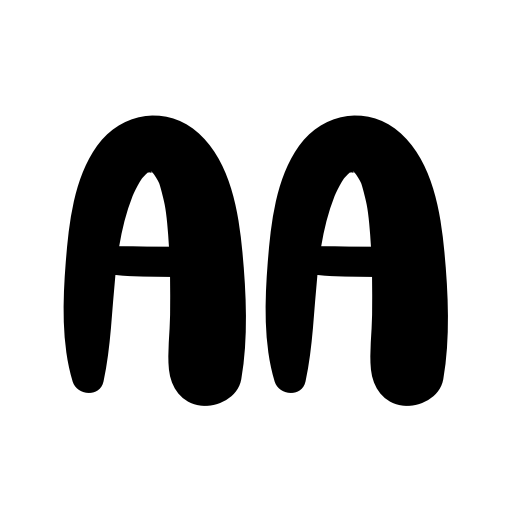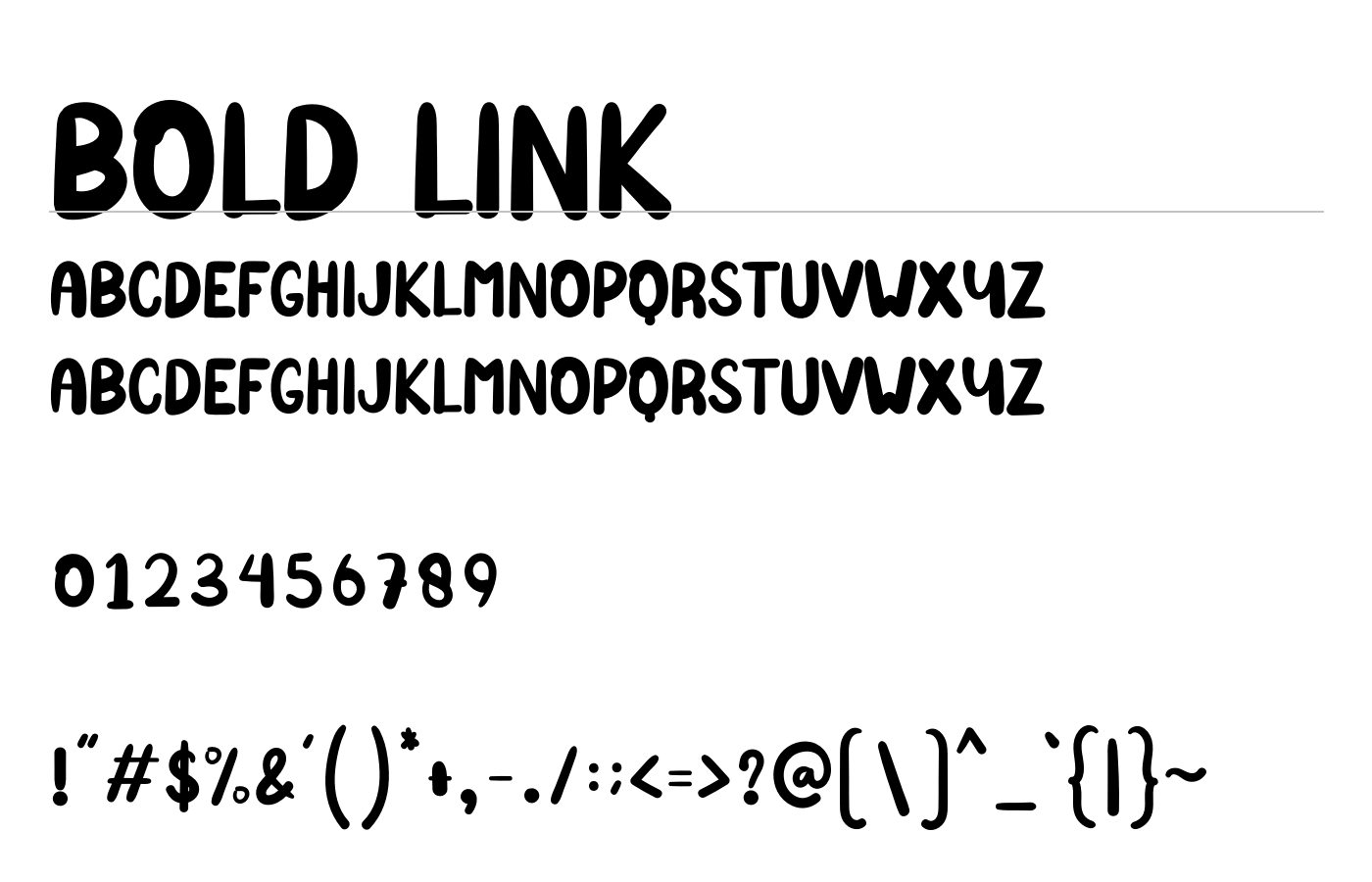
Bold Link is a playful, bold sans serif font with a friendly, hand-drawn feel. Its rounded, slightly irregular letterforms and consistent weight make it perfect for casual, fun designs, especially in children's media, informal branding, and eye-catching headlines where a warm, approachable vibe is needed. The font’s clear readability and quirky charm lend it well to both digital and print projects seeking a lively, engaging personality.
Bold Link Font
About Bold Link Font